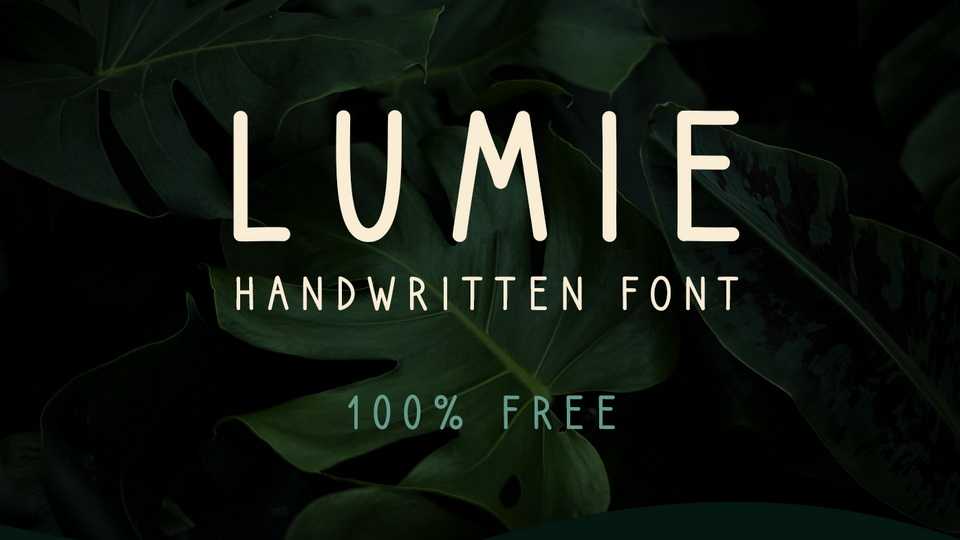
Download Lumie font, a simple and casual all caps typeface that has a handwritten feel and could be used for both serious and funny messages.
Designer: Roberta Stanić